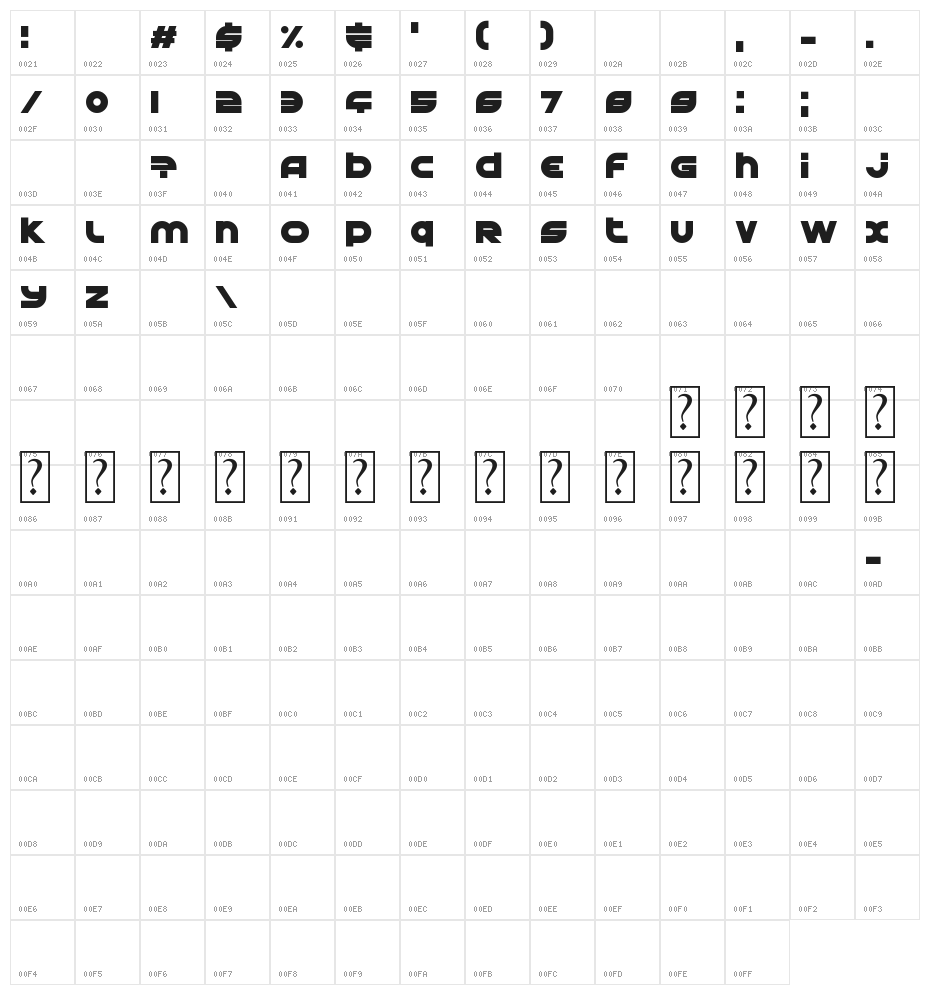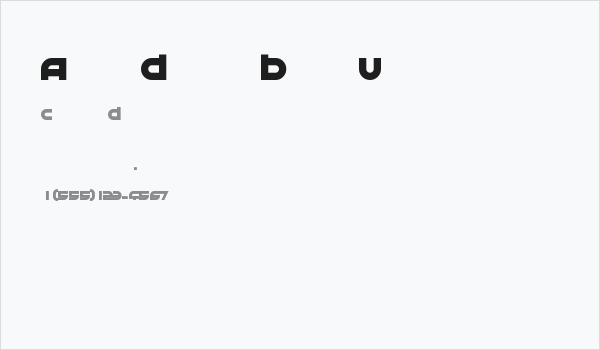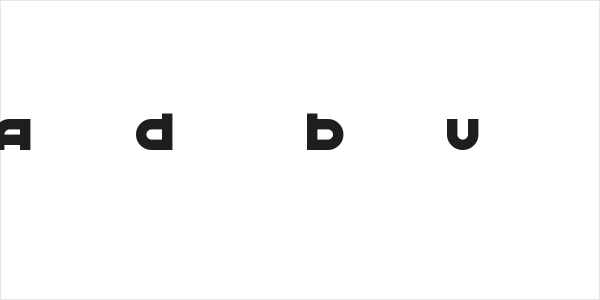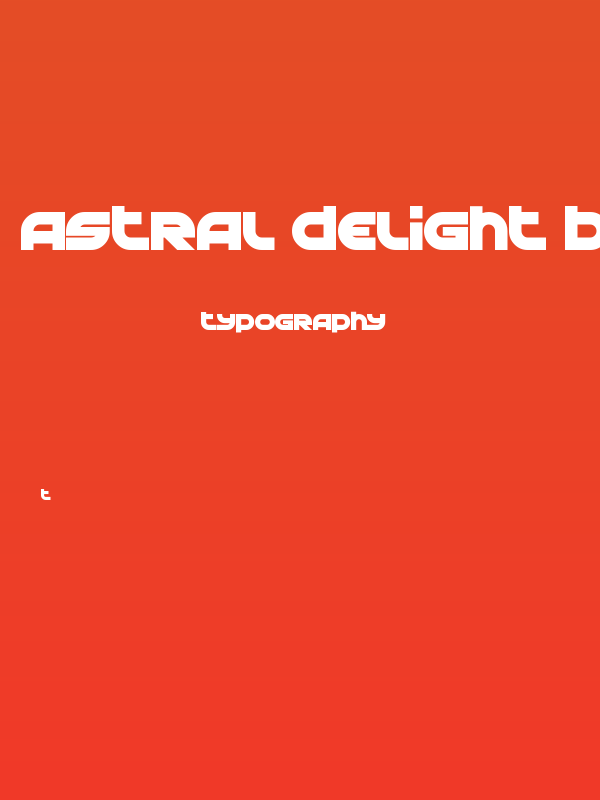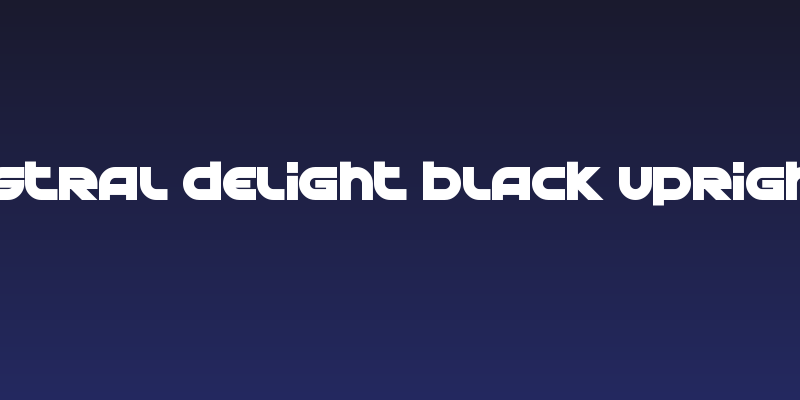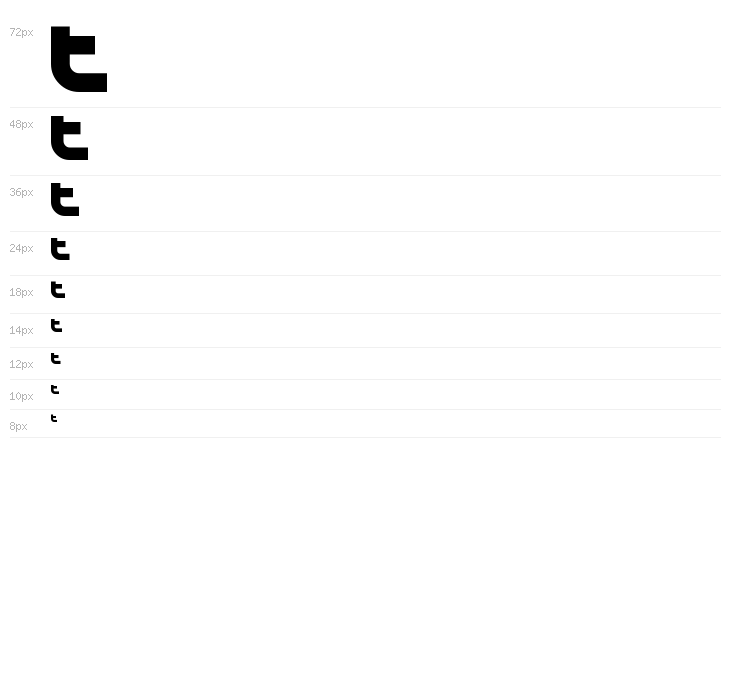
Astral Delight Black Upright Font
Astral Delight Black Upright Description
This font exhibits a bold and futuristic design, characterized by its geometric shapes and solid structure. The letters are crafted with a consistent thickness, giving them a strong and impactful appearance. The rounded edges and closed counters add a unique touch, making the font stand out. The numbers and special characters follow the same design principles, ensuring uniformity across all elements. This font is ideal for projects that require a modern and innovative look, such as technology branding, sci-fi themes, or digital interfaces.
| Proposed Projects | Ideal for technology branding, sci-fi themes, digital interfaces, and modern advertising. |